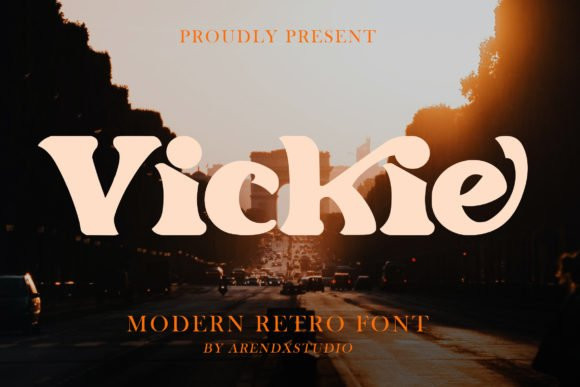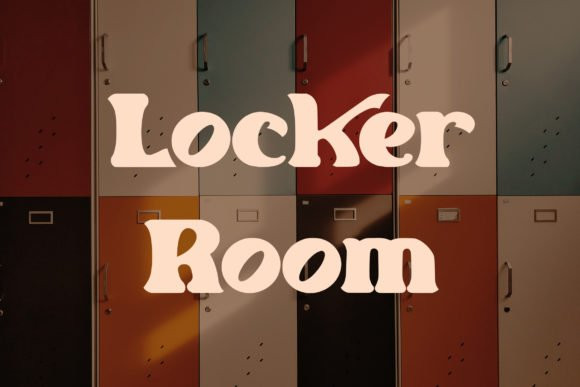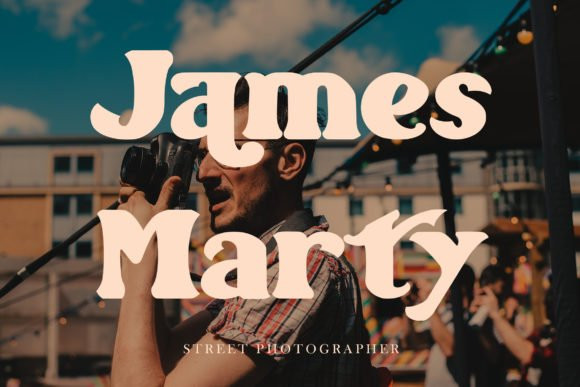
Vickie Font
Vickie FontVickie is a cool, bold and thick lettered display font. This font is PUA encoded which means you can access all of the amazing glyphs and ligatures with ease!